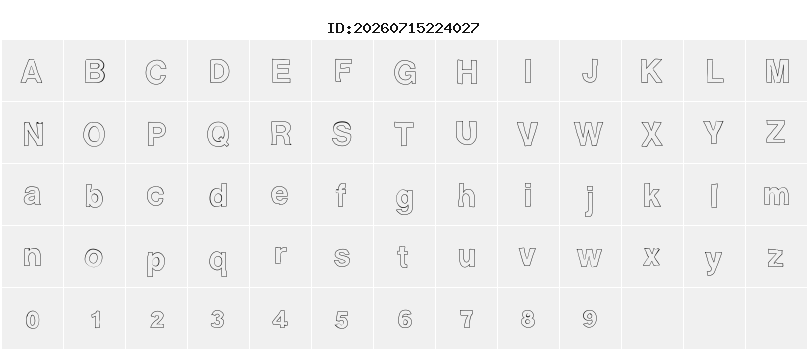
• Font Name: AshleysFont2
• Full Font Name: AshleysFont2
About AshleysFont2.ttf
AshleysFont2.ttf is a modern, elegant sans-serif font designed for ultimate readability and visual harmony. Perfect for branding, headlines, web design, and print materials.